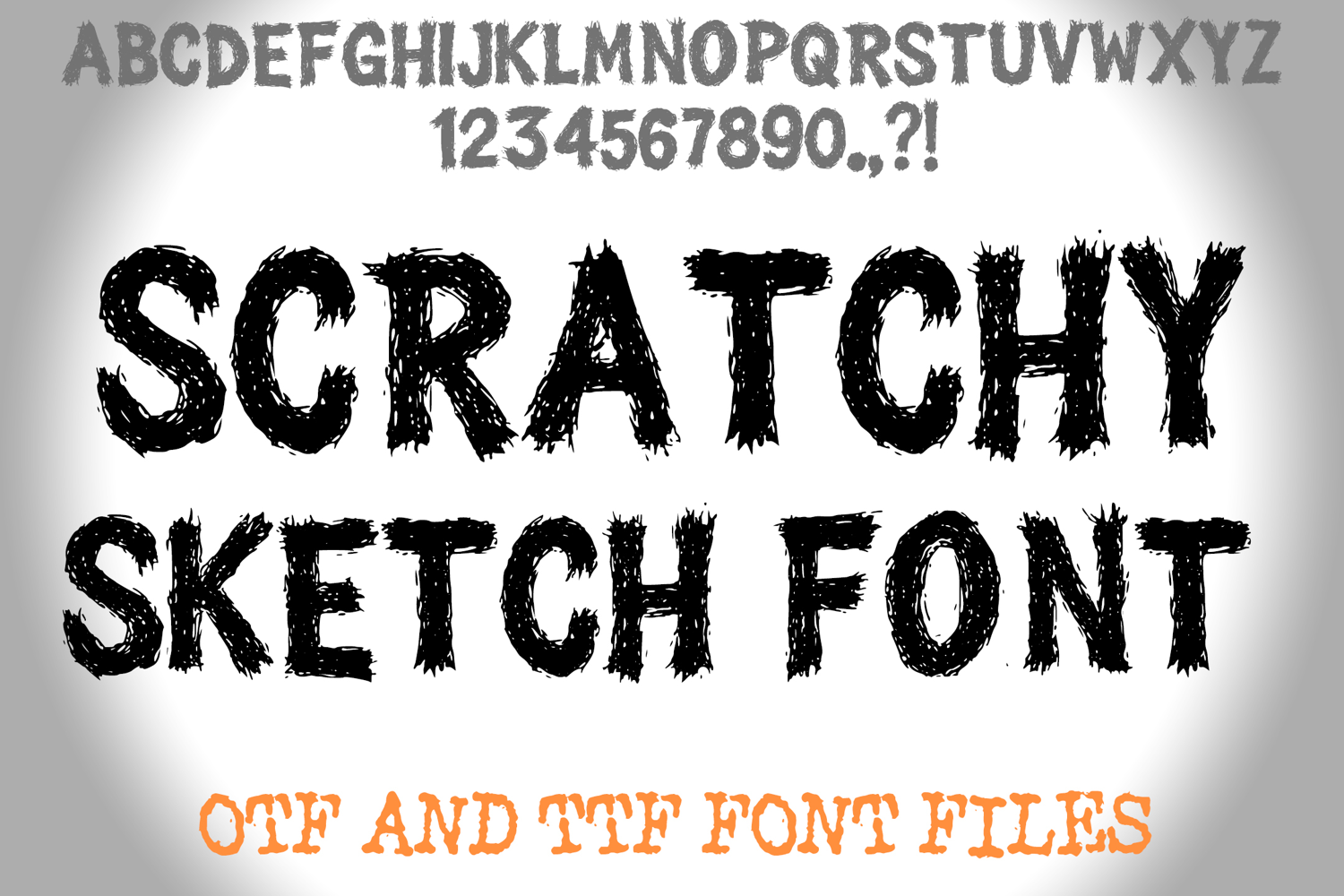
Scratchy Sketch Alphabet Lettering ABC Text Font OTF
A rough lined style font where you can create your own words and colour them to your vision!
Contains OTF and TTF file. Capital letters , . ? !.and numbers only.